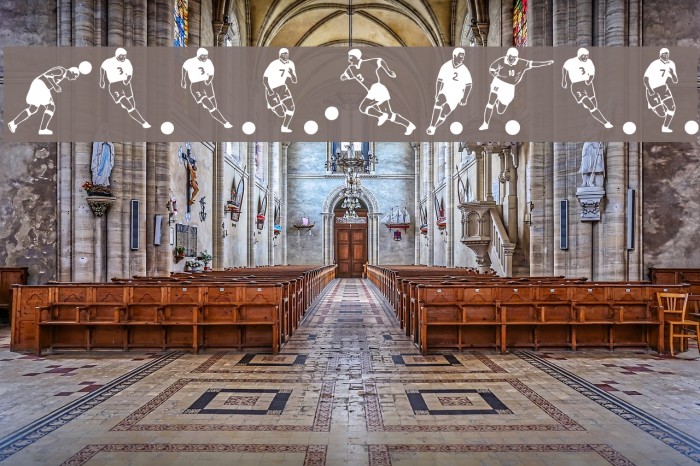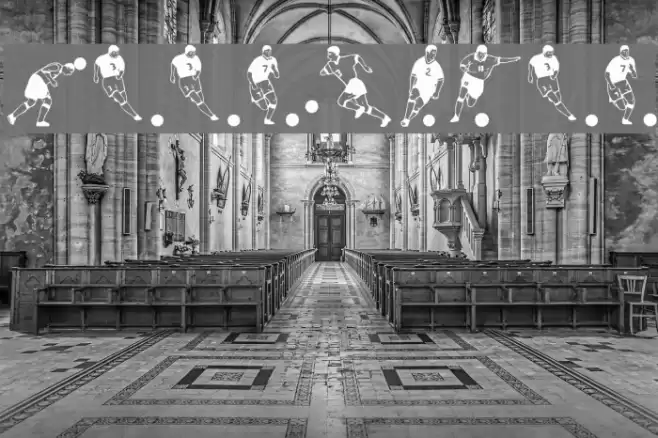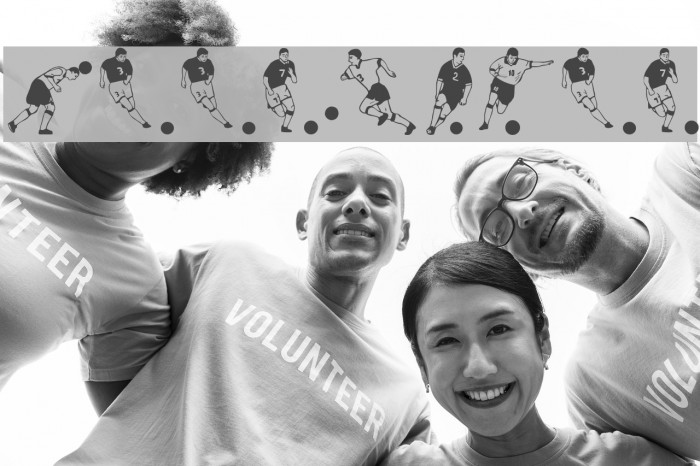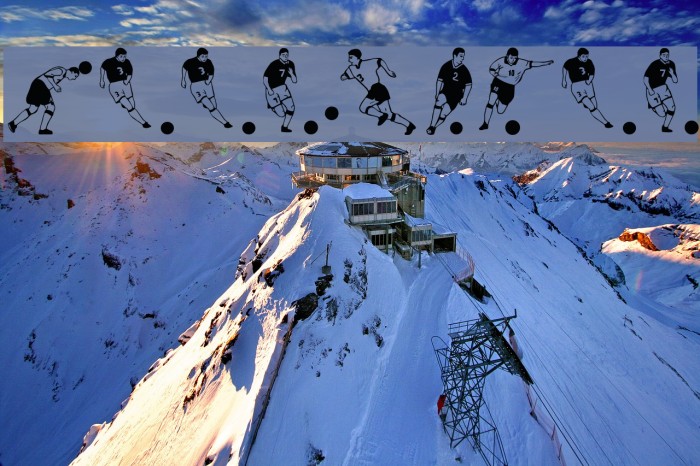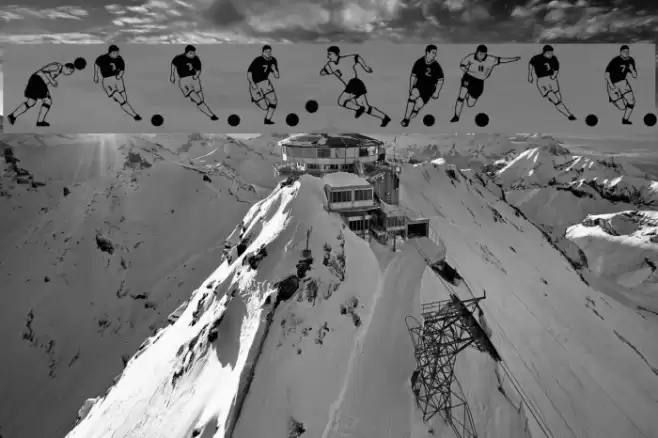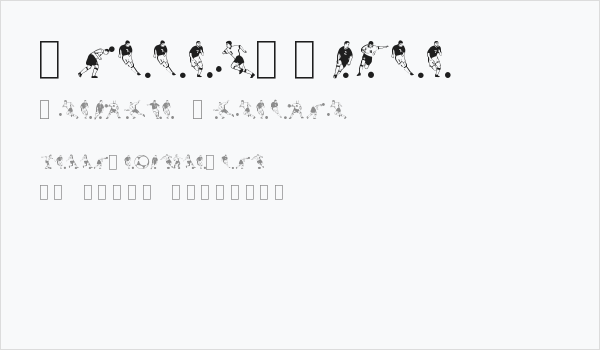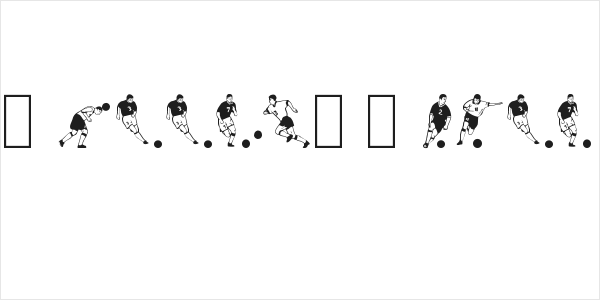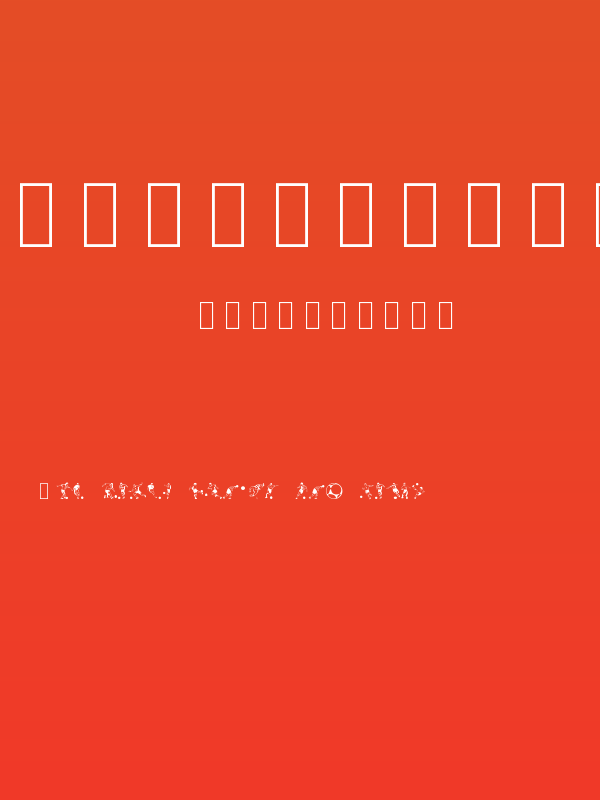
Soccer-Dance Font
Soccer-Dance Description
A decorative display font featuring detailed illustrations of soccer players in various action poses, along with soccer-related icons such as a ball, trophy, and goal. The characters are represented by unique soccer-themed drawings rather than traditional letterforms.